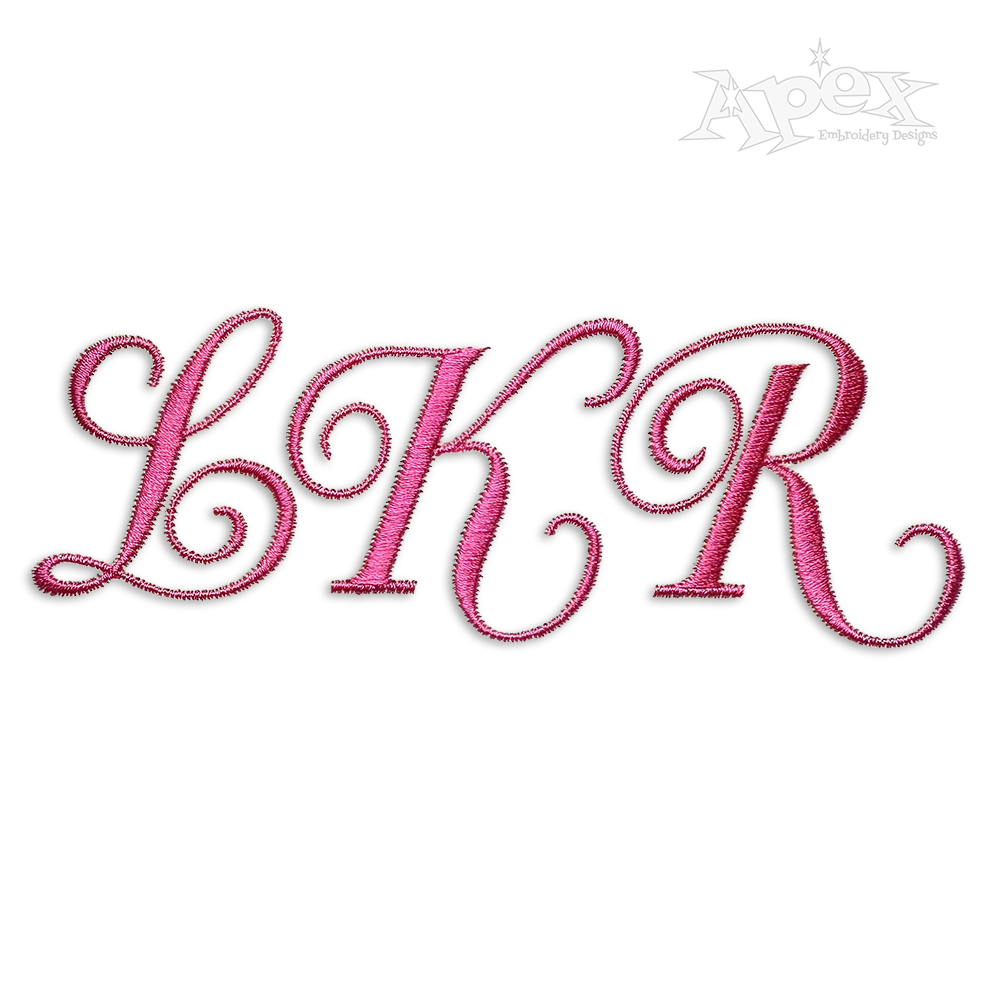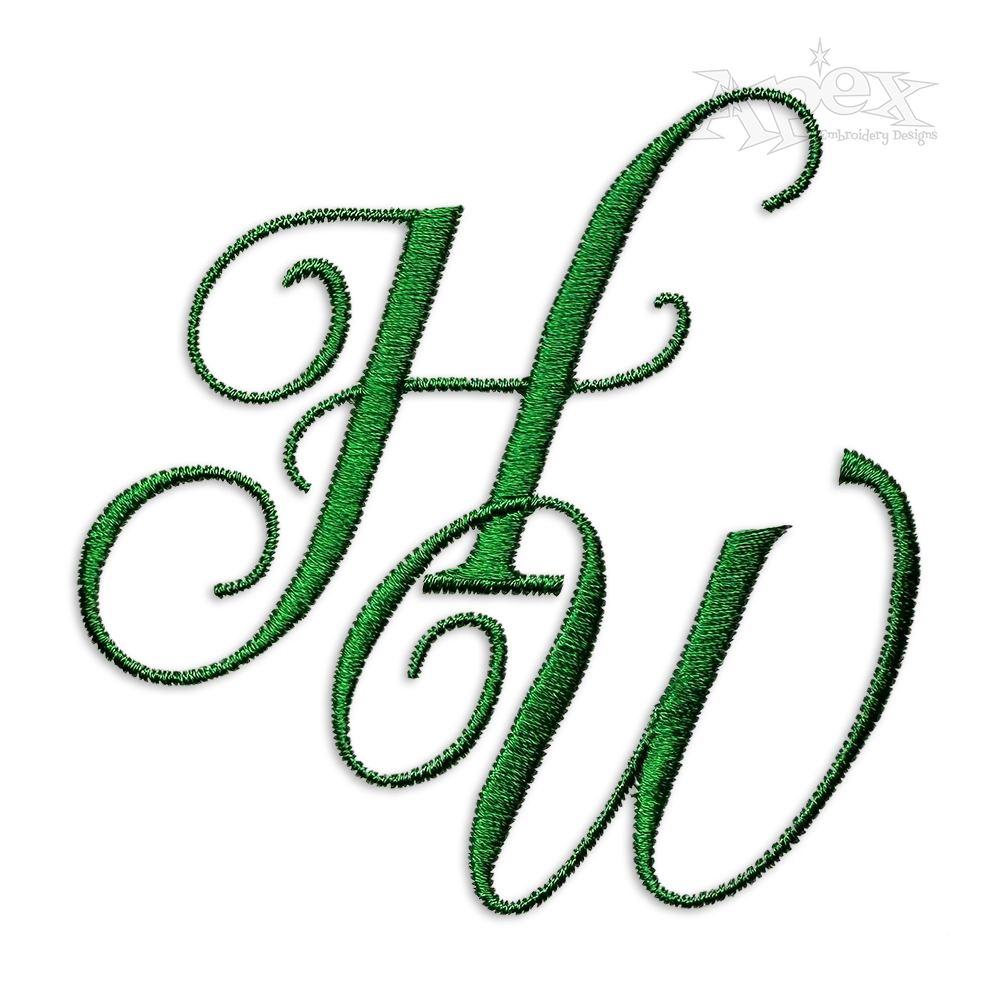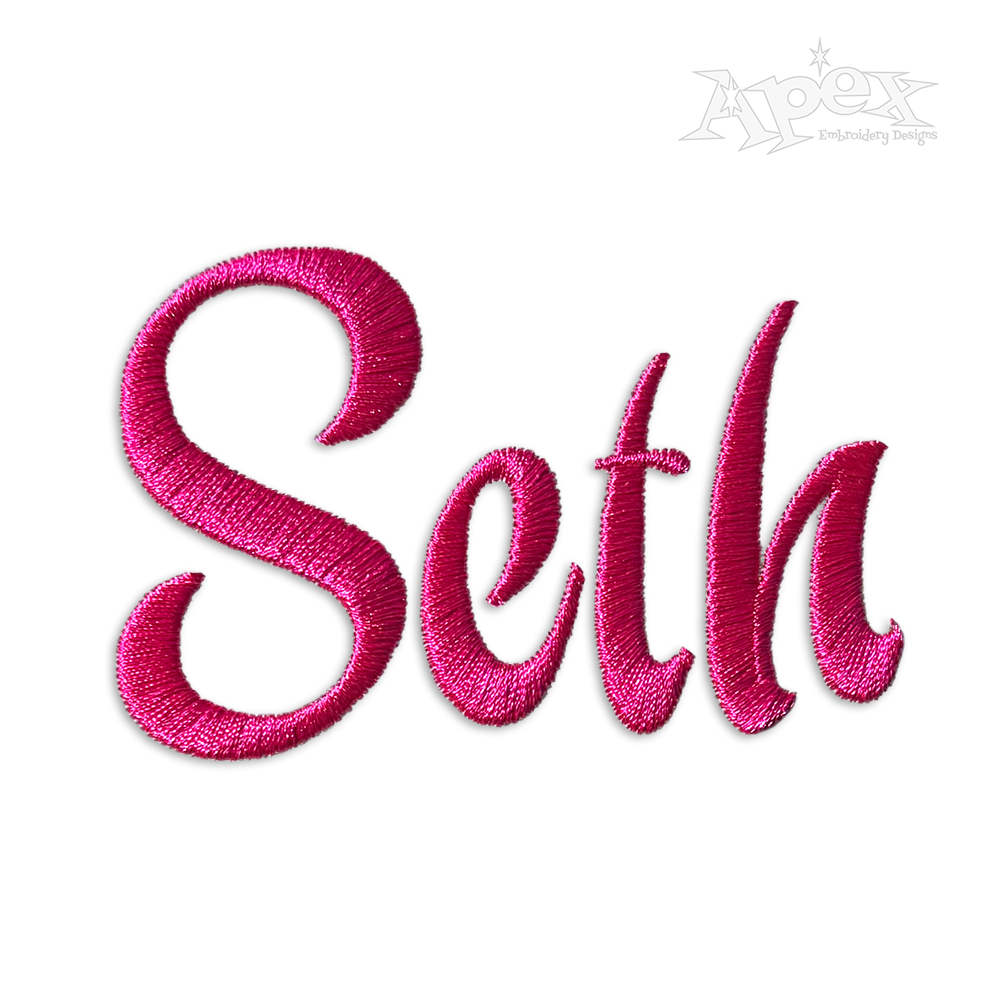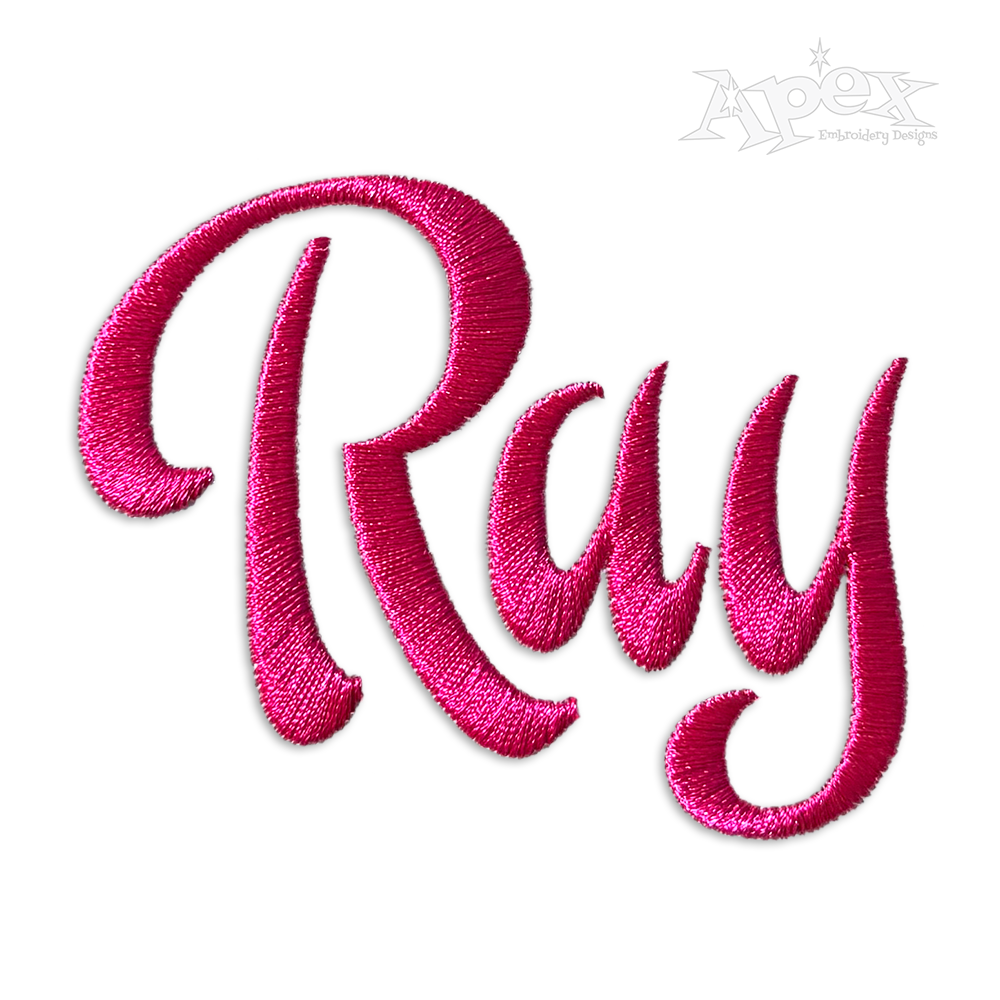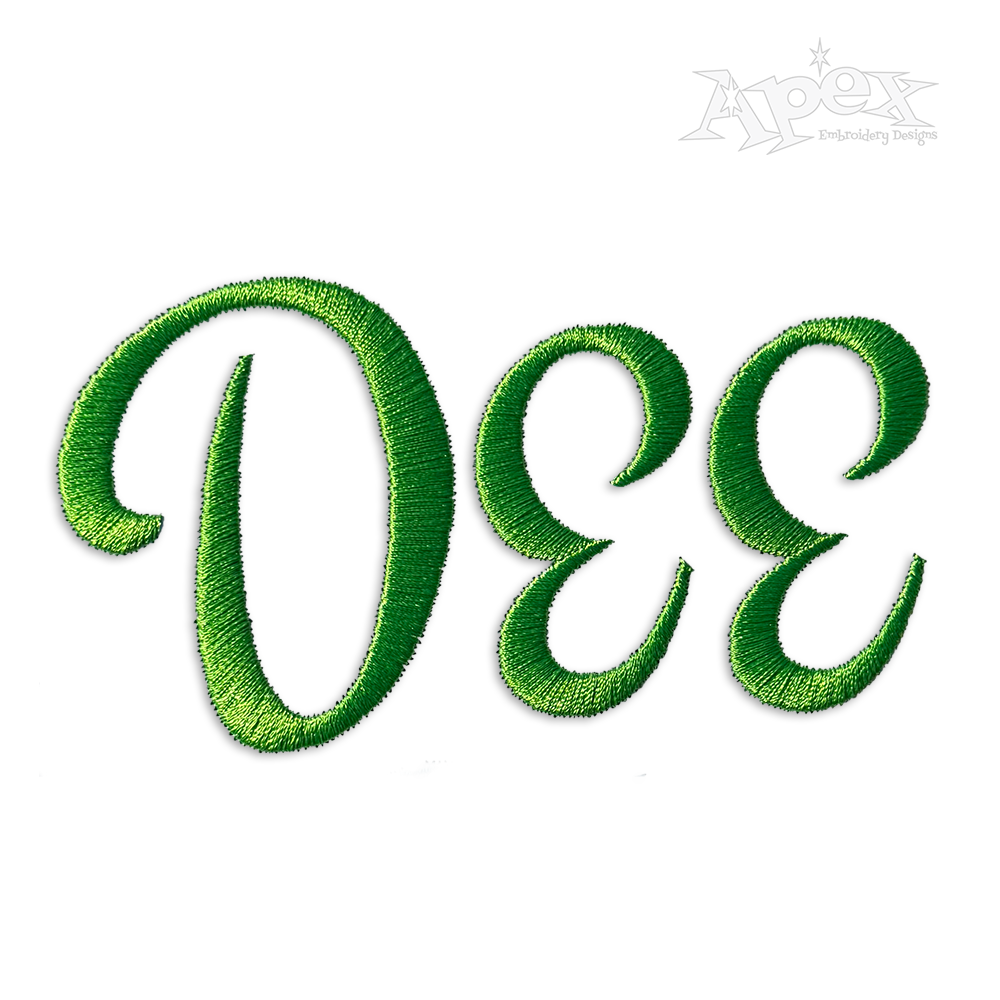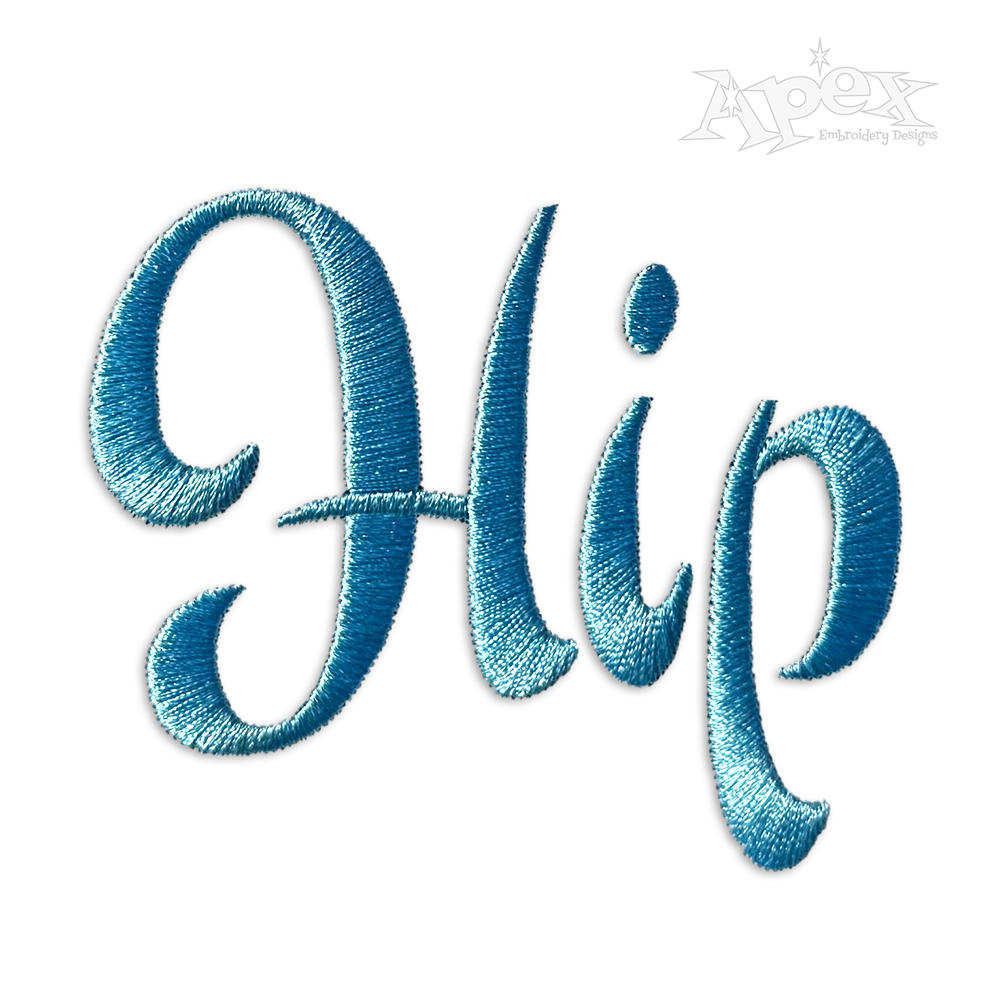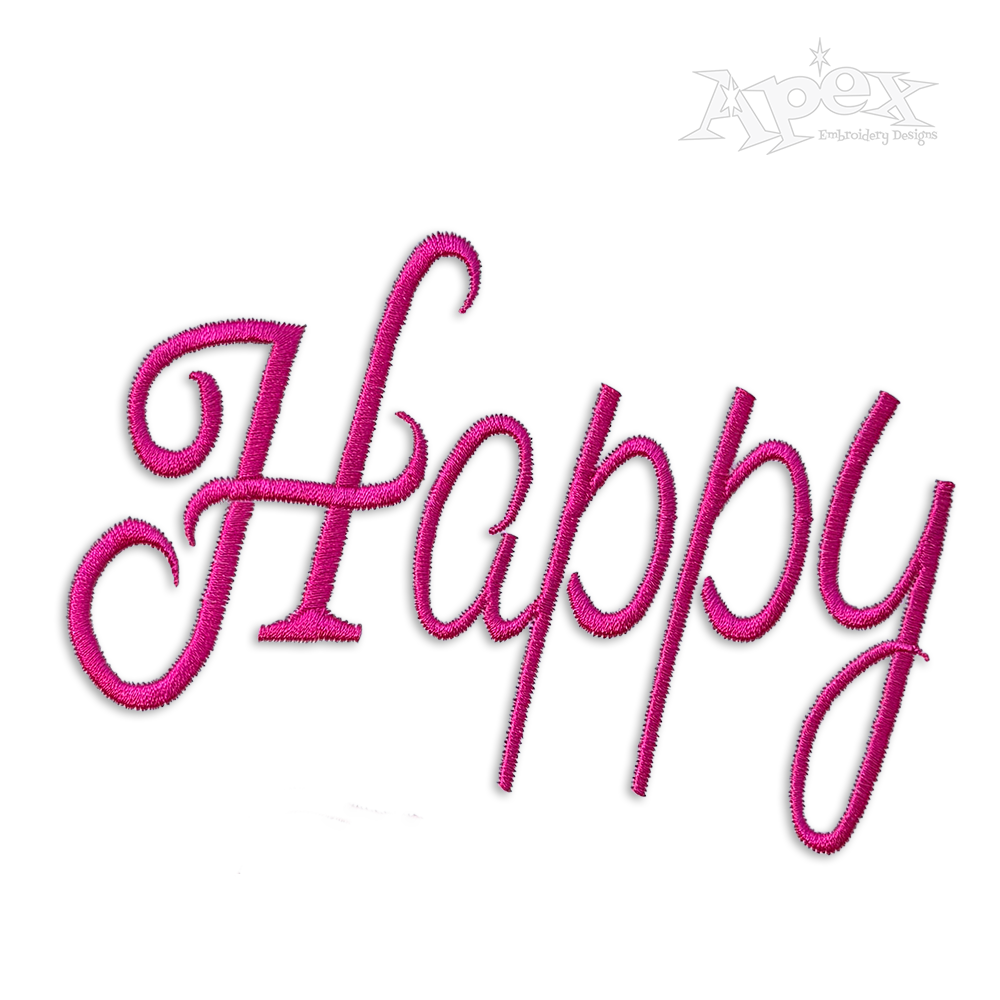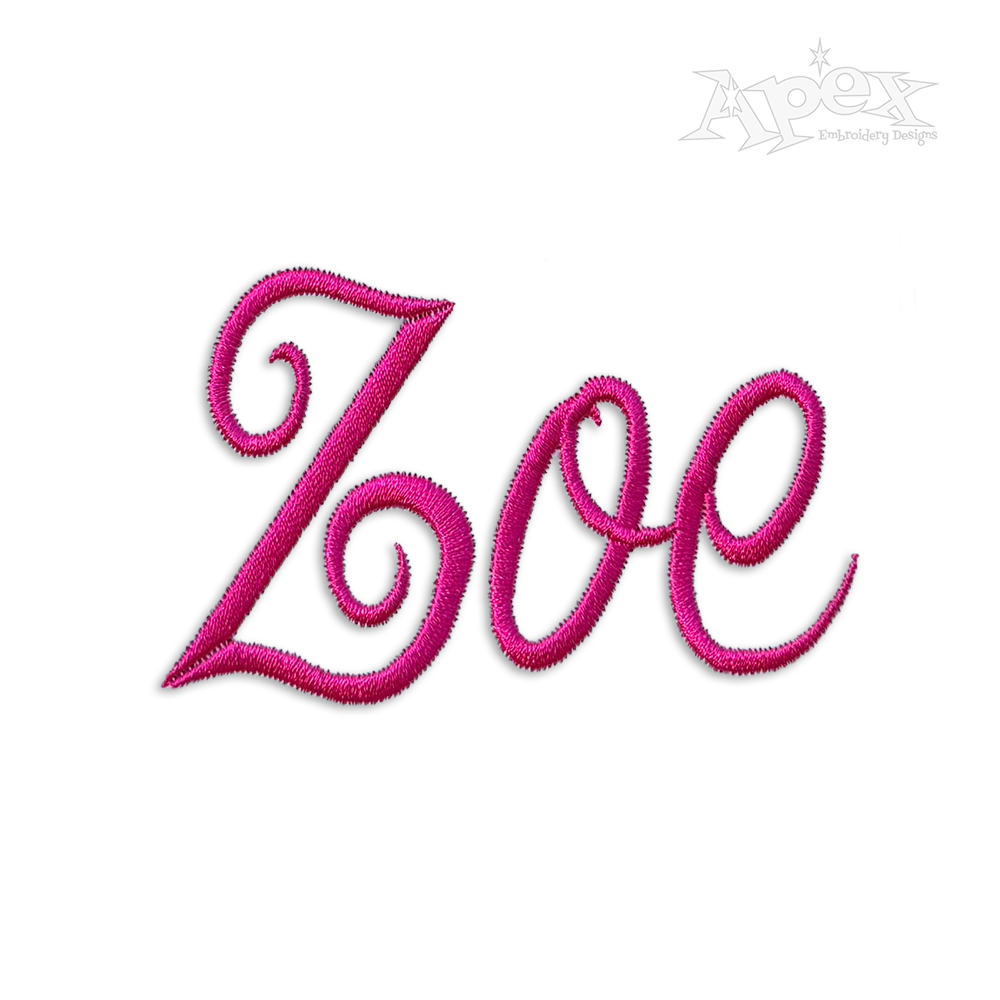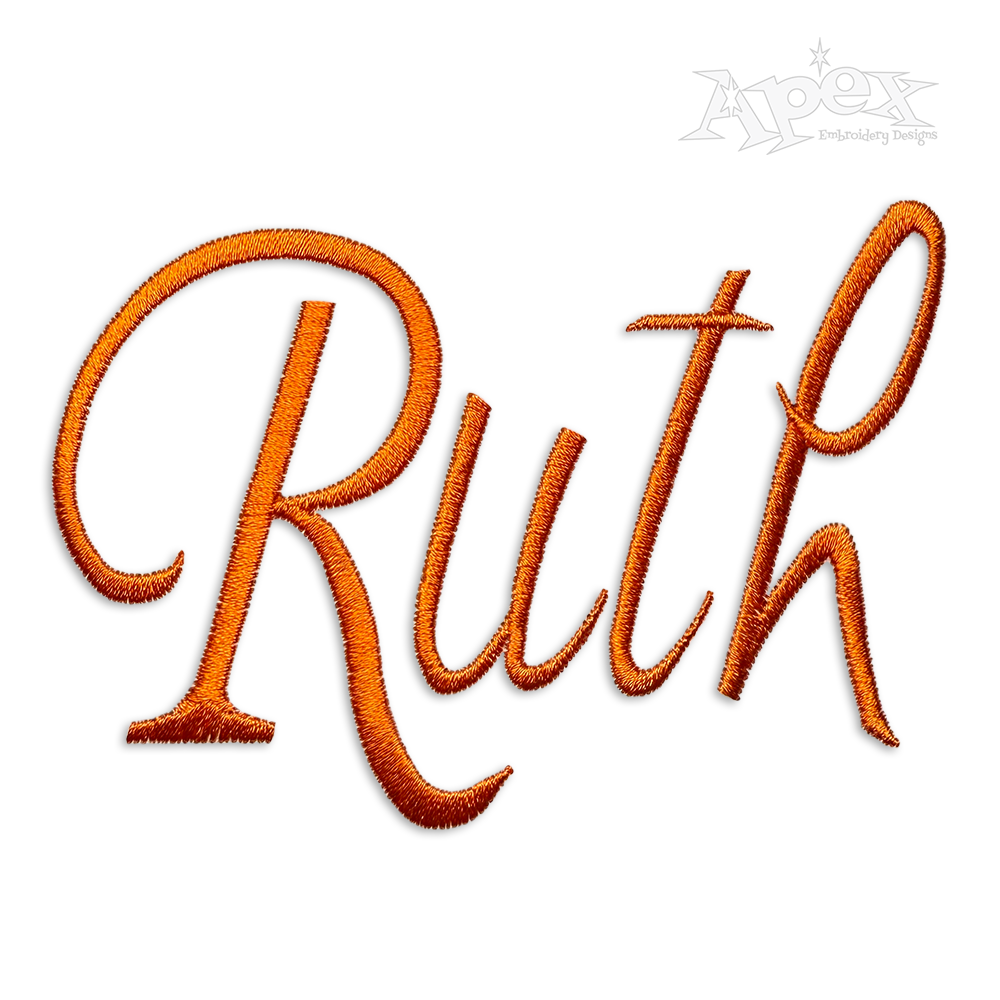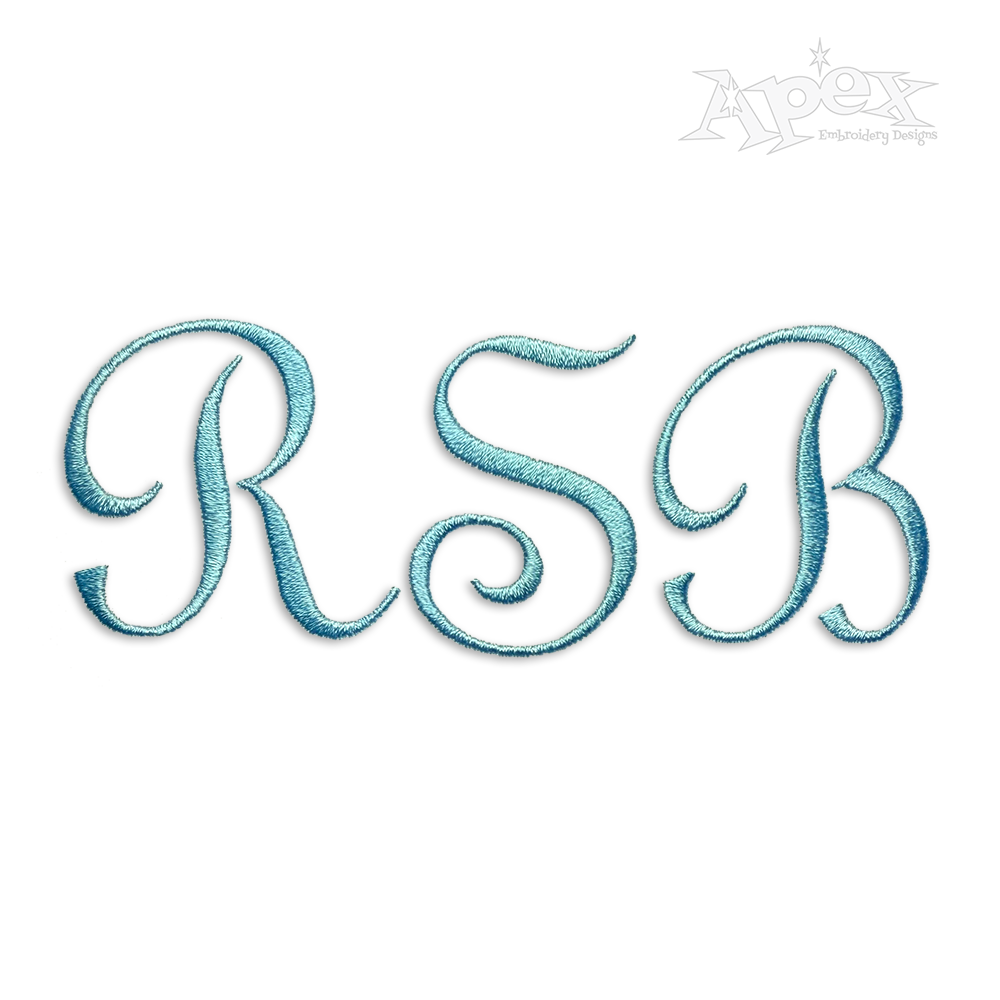
Grace Script Embroidery Font
Create elegant personalized names with Grace font set. This cool cursive script embroidery set is perfect for customizing hats, linens, towels, baby gifts, tote bags, and more. Included All Letters A-Z Upper and Lowercase.
Grace Script embroidery font collection includes complete size sets with cursive script letters designed for creating stunning personalized names. Each font comes professionally digitized for smooth stitching and excellent embroidery results.